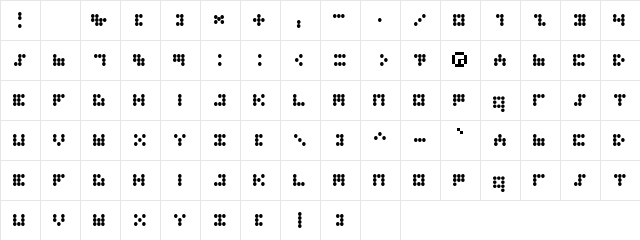
imajix 9dot Normal Font Preview
imajix 9dot Normal
imajix 9dot Normal Font Details
Design Context for imajix 9dot Typeface
imajix 9dot celebrates the constraints of early digital type, turning pixel geometry into a distinctive and immediately recognisable style.
A natural choice for retro game titles, chiptune music branding, 8-bit UI, and digital nostalgia projects.